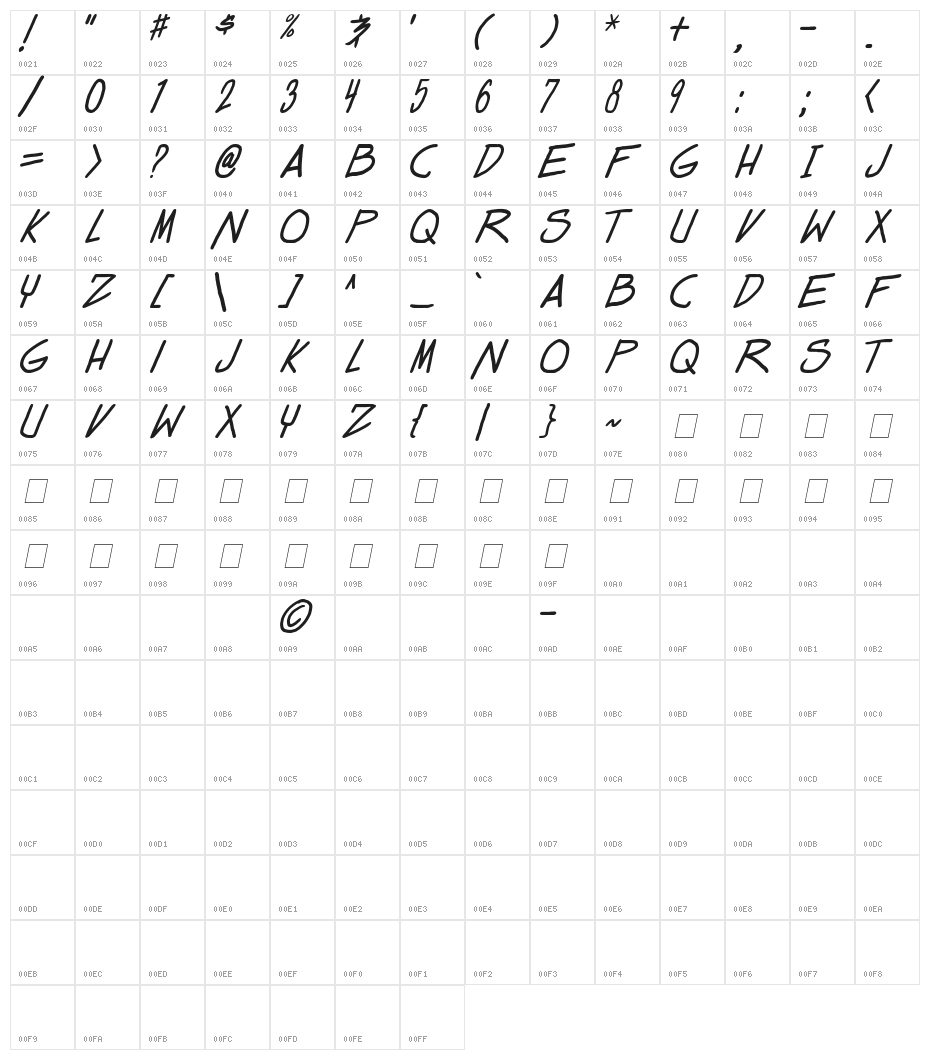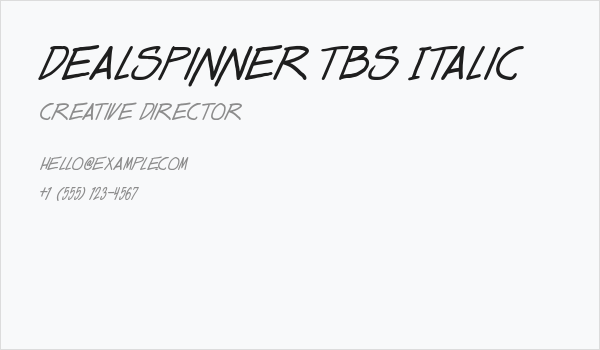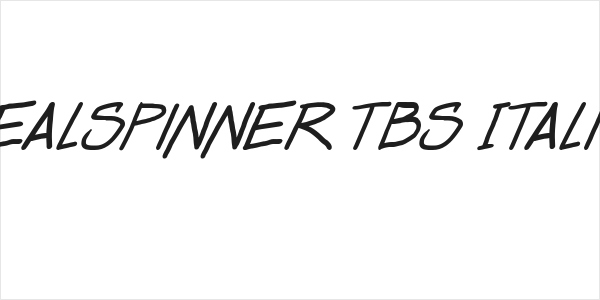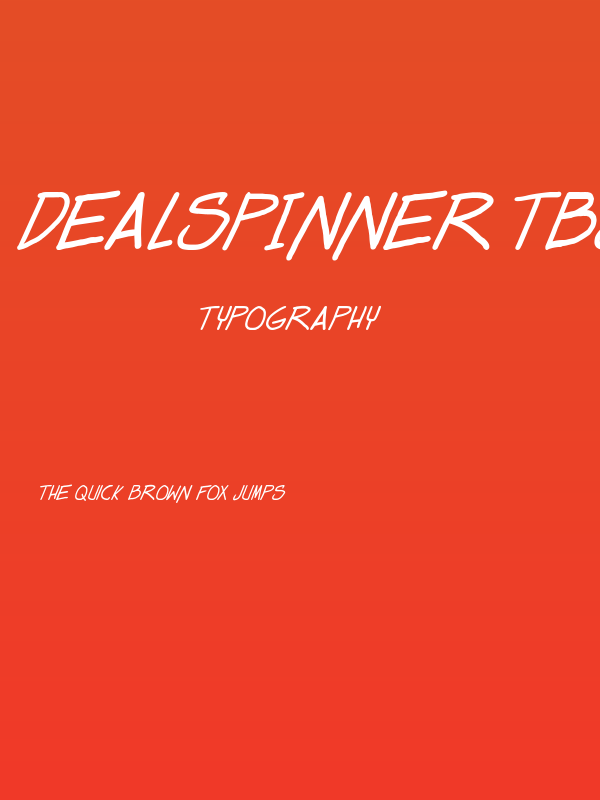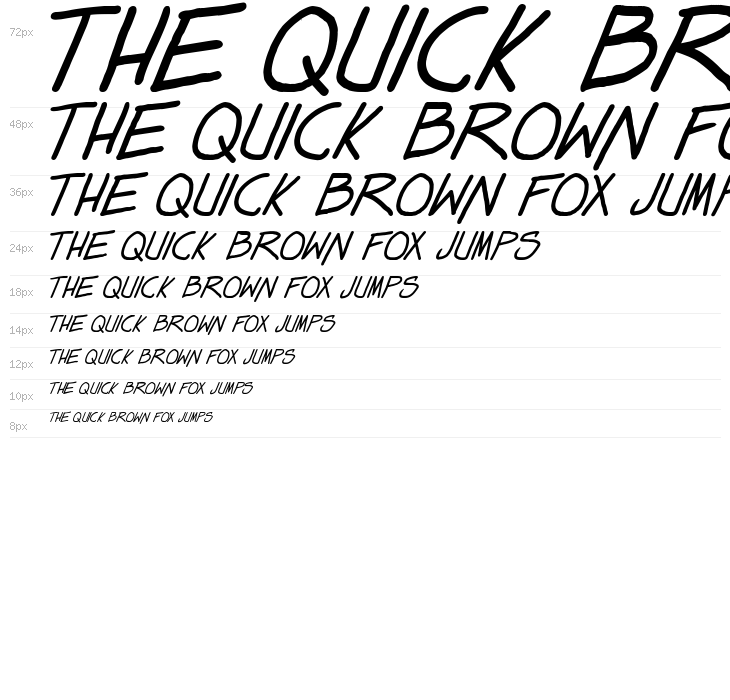
Dealspinner TBS Italic Font
Dealspinner TBS Italic Description
This font features a dynamic and energetic style with a handwritten appearance. The letters are slightly slanted, giving it an italicized look that adds a sense of motion and fluidity. The strokes are bold and consistent, with a medium contrast between thick and thin lines. The characters are well-spaced, providing a clear and legible appearance. This font's playful and informal style makes it suitable for creative projects that require a personal touch.
| Proposed Projects | Ideal for greeting cards, invitations, posters, and branding materials that require a personal and creative touch. |